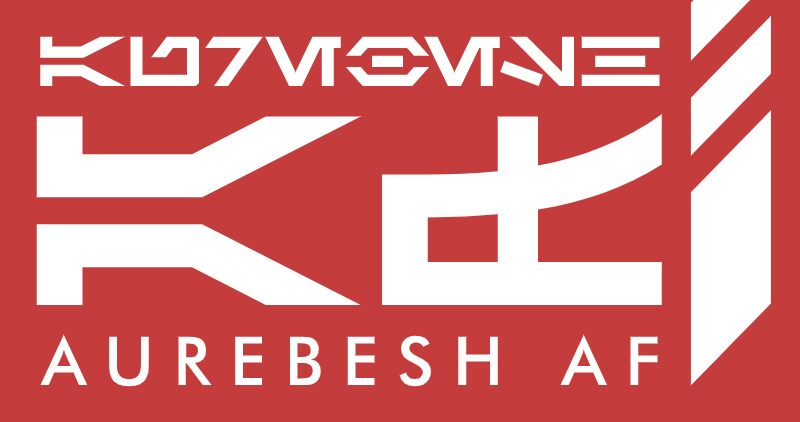
Aurebesh is the most common writing system in the "Star Wars" franchise.
Aurebesh AF is an attempt to create the most accurate and aesthetically pleasing Aurebesh font, and then make it completely free.
Aurebesh AF comes in two main styles (Canon and Legends) to choose how to apply ligatures, and two sub-styles (Canon Tech and Legends Tech) to use the alternate "Tech" numbering system.